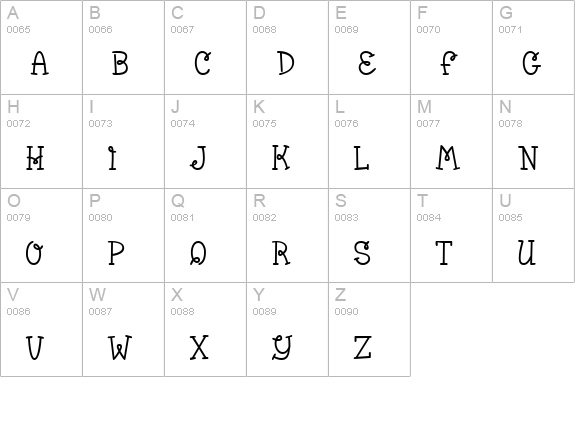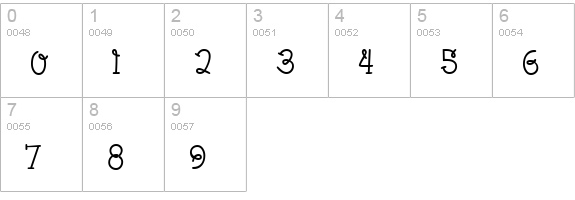
Bumble Bee BV font is a delightful and whimsical typeface that exudes a playful charm and a touch of elegance. Its graceful curves and unique design make it perfect for a variety of creative projects, from invitations to branding and beyond. The flowing lines and intricate details of this font add a sense of sophistication and beauty to any text it graces. What makes Bumble Bee BV font even more appealing is that it is available for free download at FontsMarket.com. This means that you can easily access this stunning font and incorporate it into your designs without any cost. Whether you are a graphic designer, a blogger, or just someone looking to add a special touch to your projects, Bumble Bee BV font is a fantastic choice that will elevate your work to new heights. Don't miss out on the opportunity to enhance your designs with this beautiful and free font today!